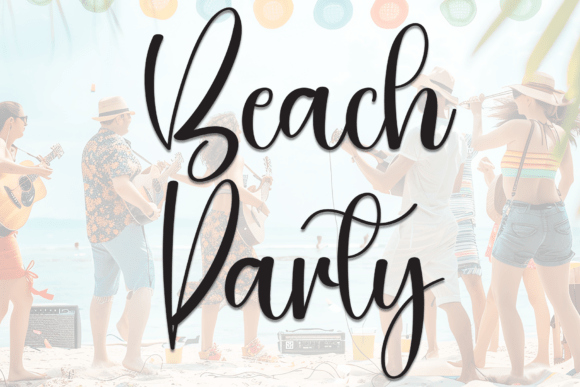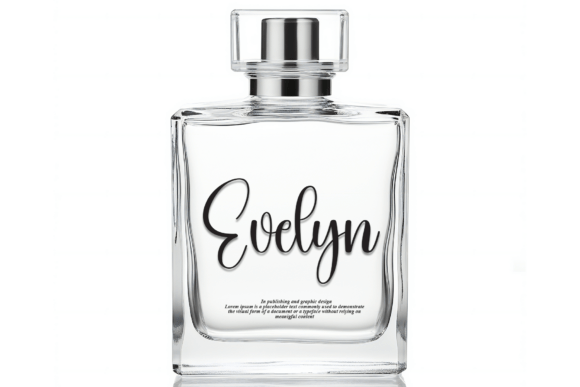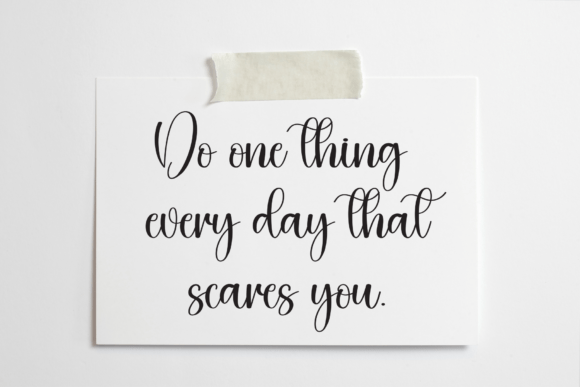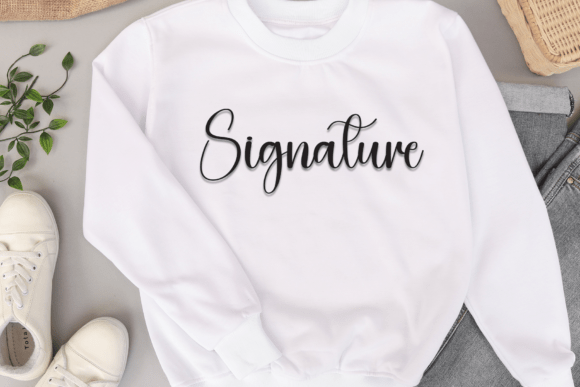
Beach Party Font
About the Beach Party Font
The wait is over! The incredible Beach Party Font is now available for your design toolkit. Beach Party is a stylish handwritten script font that combines elegance with a modern flair. Its flowing strokes and organic curves bring warmth and sophistication to any project. Ideal for branding, invitations, and social media, this typeface adds a personal, refined touch with effortless charm.
Beach Party Font Usage Examples
Beach Party Font Example